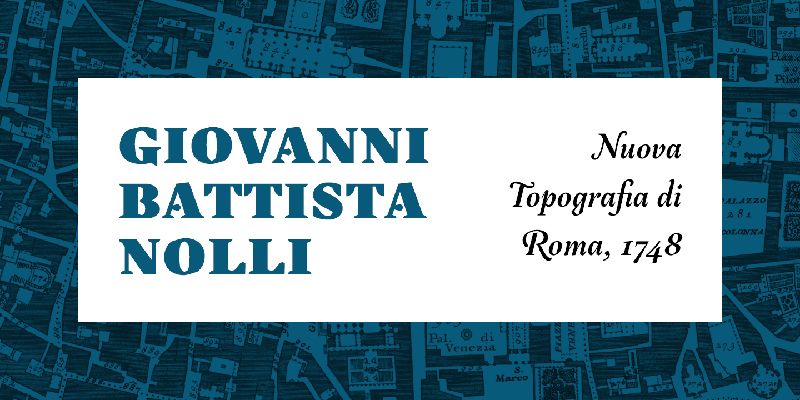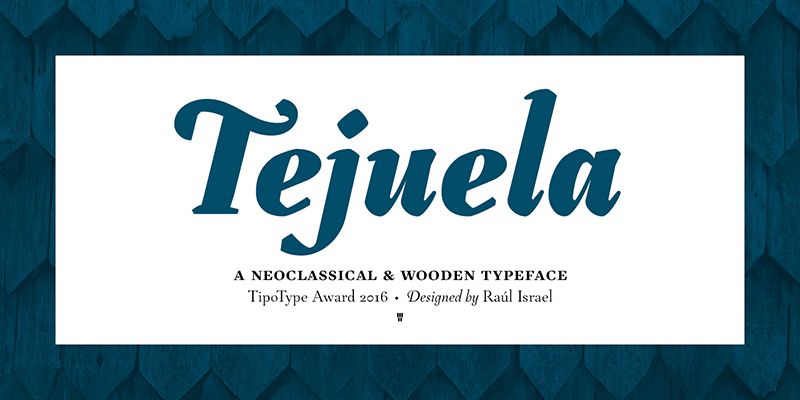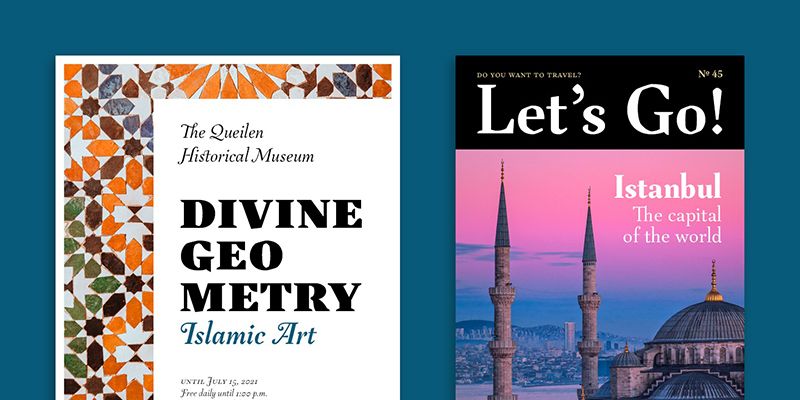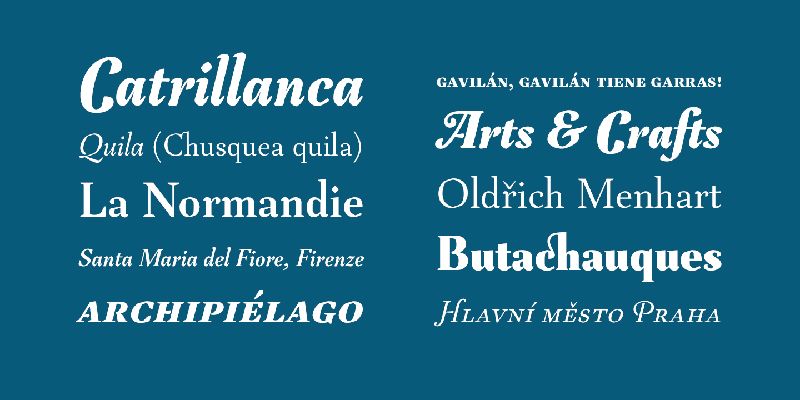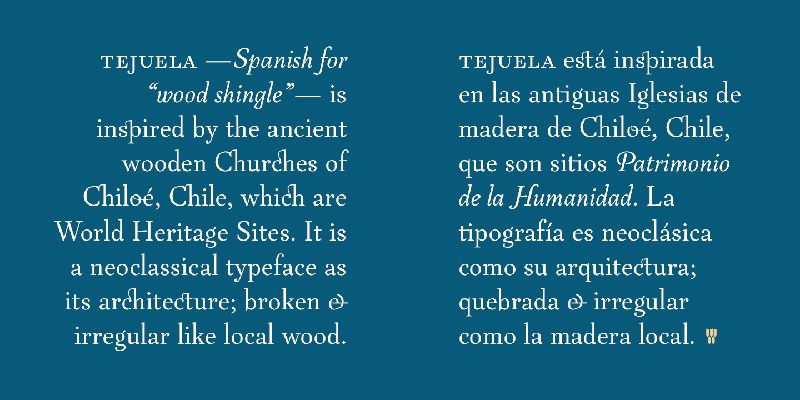
Inspired by the wooden architecture of the ancient churches of Chiloé, an archipelago in southern Chile; which are World Heritage Sites. This typeface has rough and broken forms but with soft strokes.